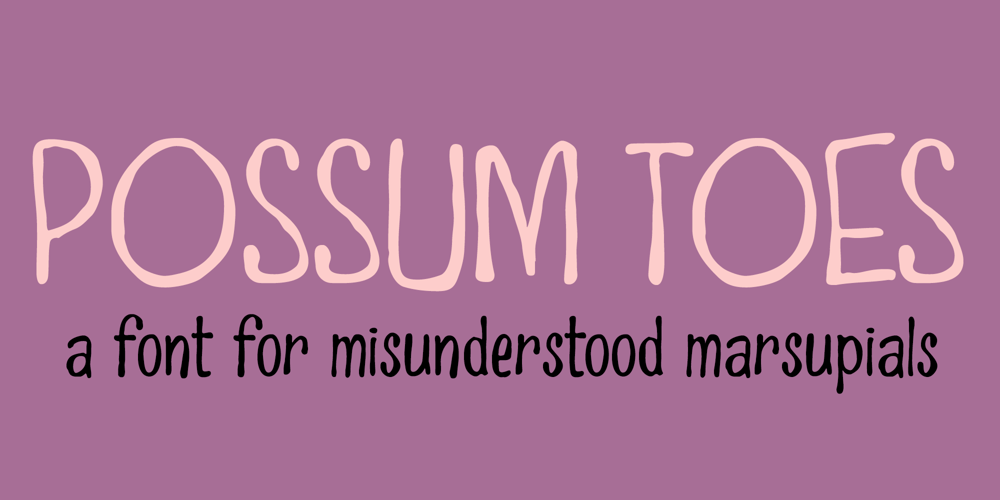
Possum Toes Font Family was designed by Brian J. Bonislawsky, Dave Cohen and published by One Eyed Squid. Possum Toes contains 1 styles and family package options. A font for the misunderstood marsupials, Possum Toes is soft and spindly, delicate and fun…you’ll find Possum Toes has its fingers in the frolicking field of funky fonts.(Possum Toes contains an extended Latin character set with added Vietnamese support.)